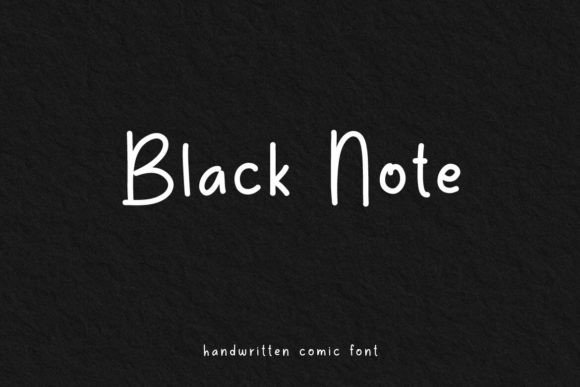
Journey into the world of Black Note, a captivating script font that dances across your designs with its elegant strokes and enchanting charm. Designed by the talented artists at Mightyfire, Black Note is a handwritten masterpiece, capturing the essence of artistry and creativity.
Black Note's petite stature lends it a playful and whimsical touch, making it the perfect choice for adding a touch of magic to your designs. Whether you're crafting comic books, posters, or flyers, Black Note's versatile nature shines through, adapting effortlessly to any project.
With its diverse range of applications, Black Note is a font that knows no bounds. From school projects to social media content, this versatile font adds a touch of elegance and sophistication to every creation. It's a font that speaks to the heart, expressing emotions and ideas with a unique and personal flair.
Black Note's ability to capture attention is undeniable. Its bold, confident strokes demand notice, while its intricate details add depth and dimension to your designs. Use it for book titles, advertisements, and logos, and watch as it transforms your words into captivating statements that resonate with your audience.
Embrace the power of Black Note and elevate your designs to new heights. Let your creativity soar as you explore the endless possibilities that this enchanting font offers. Its small size belies its mighty impact, leaving an indelible mark on everything it touches.